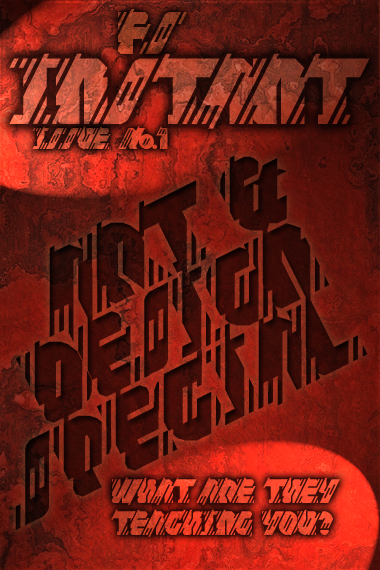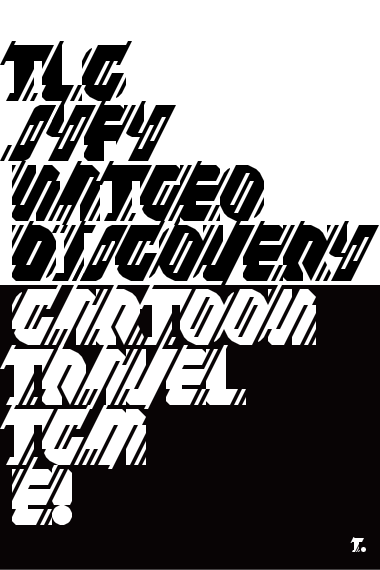
• This fontstruction was started a long time ago. Yesterday, being bored (or something), I randomly clicked on page 7 of My FontStructions and found this. Being bored (or something), I clicked Edit.
Back in February 2010, I was able to take this fs only so far and came to a halt owing to geometry and FontStructor limitations. Those limitations, for the most part, seemed to have disappeared in the intervening time. I must've felt encouraged as I've been working on this fs all day today. As it turns out, when you work on something long enough, something will emerge. Et voilà. (I jest. ;)
Visual aesthetics require two elements, namely, art and design. Let's examine each, shall we, the better to understand whence this came from and to what purpose.
Art has as many meanings as there are people giving them. For me, art is that visual that appeals to one, the stress being on 'one', and serves no practical purpose. Design, on the other hand, by definition*, must serve some purpose, must be reasonably attractive to those for who it is intended, and must stay within the limitation (whether explicit or implicit) of all that is (or will be) involved.
This and every other fontstruction, being visual in nature, has an element of art in it. Keeping the above art definition in mind, and as far as this fs is concerned, the art was my personal aspiration to try to do a diagonal stem of the A and the M and have the rest of the letters in such formation so that they fit like a glove with the A and M (without any effort on the user's part — but that jumps ahead to design). The February 2010 version of the FontStructor allowed me to achieve that very well. The art part was a start (yes, sorry, I couldn't resist the rhyme).
In my experience, any visual thing, no matter how simple or complex; no matter how involved or not; how unique or generic; how &c. and &c. may be termed art as if any one person appreciates it, it is art, albeit to that person only. So, I am satisfied how this fs looks, so the art is done. Also as per my personal experience, design is a much harder, difficult, involved element of getting something done right that also requires appropriate technical know-how to see it to fruition. The February 2010 version of the FontStructor did not allow the 'fit like a glove without user intervention' part. This morning when I started working on this fs, the September 2011 version of the FontStructor allowed me to do almost all that I wanted it to. (I say 'almost' because there were one or two custom bricks I required that I was unable to achieve, quite possibly due to my own inability).
The design confine [—if art gets a rhyme, so shall design—], with every letter overlapping just so, required quite a lot of geometric manipulation (not particularly apparent) to make sure any two letters fitted in properly. It got tedious quick fast in-a-hurry typing out manual kerning pairs (AM, ST, &c.). I had to type out all kerning pairs (AB, AC…RI, RJ, RK…SM, SN, SO…VS, VT, VY…ZZ…&c.) in Word (utilizing handy Replace functionality to speed kerning pair creation) and test every possible pair (even ones that are likely never to be used in reality—QK, for instance).
This being a design exercise, there had to be a purpose. My thinking was, staying within the limitations created by the art part, the font should work as an instant logo delivery system. Type a word in fs Instant—and, hey presto!, Logo (a gogo). It’s up to you to decide if I succeeded.
The Design element is masterful -the Art element is wonderful. An overwhelming success by your own (high) standards. 10/10
...which certainly describes your wonderful font, in both art and design. Terr ific work, Thalamic!
And thanks for the lesson à gogo, Goatmeal. (Name of the font updated.)
Following is an image of the logo-making potential—in pure B&W no less.
A work of art, indeed. Brilliant. What a demo pic! 10/10
PS: I enjoyed reading your thoughts and memories - disguised as description - about this work. Nobody could argue you were hasty or shallow.
very dynamic font
Instant classic, spectacularly crafted throughout. I’m gaga for à Gogo! 10/10 :)